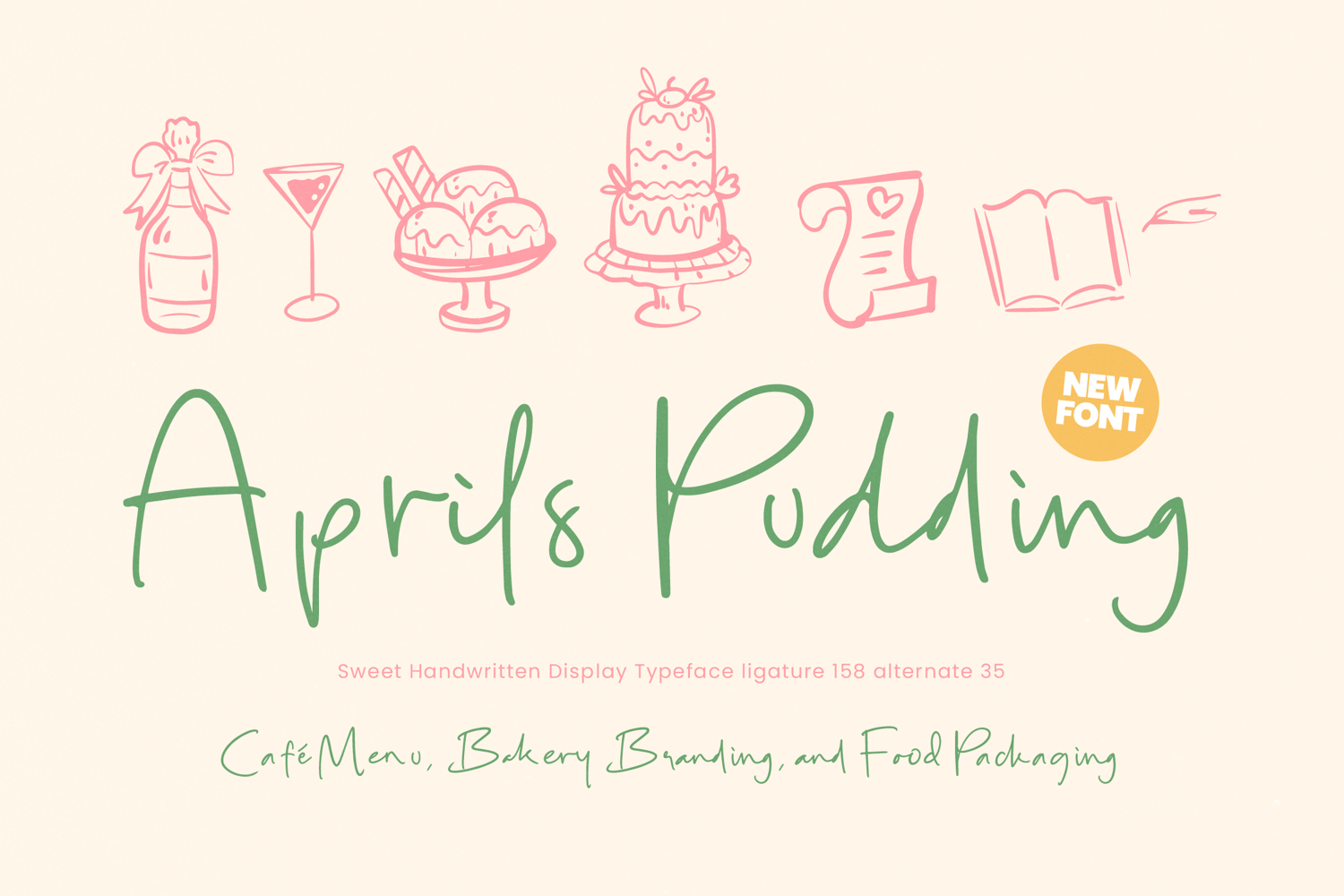
Aprils Pudding - Sweet Handwritten Display
Aprils Pudding - Sweet Handwritten Display. This typeface is a meticulously crafted handwritten display script that captures the authentic feel of a casual, natural flow. Its thin, mono-line weight ensures a light, elegant presence, making it perfect for conveying a sense of genuine sweetness and artisanal quality. The high level of detail, including 158 ligatures and 35 alternates, guarantees truly unique typesetting that avoids the repetitive look common in standard script fonts.